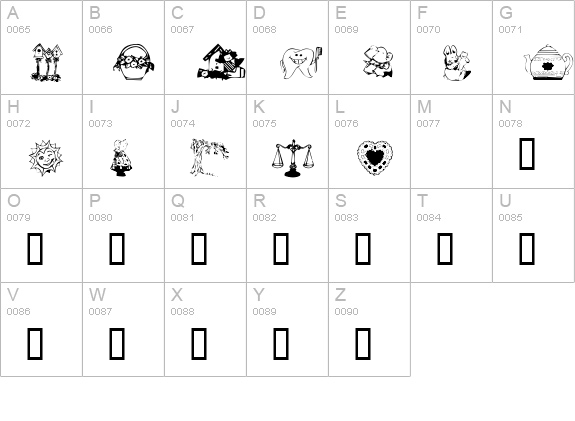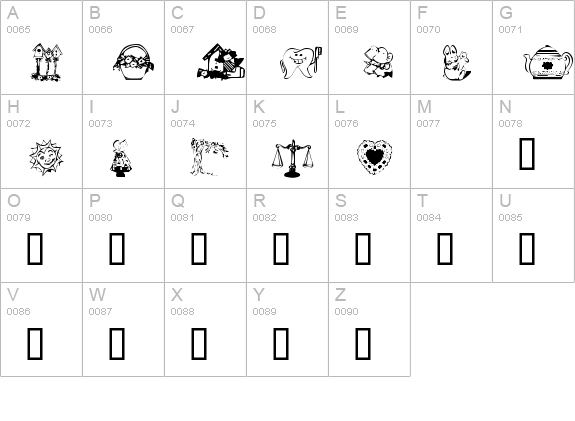
Mixed Bag 3 Font Details
Mixed Bag 3 font is a versatile and creative typeface that offers a unique blend of playful and elegant elements. This font features a mix of different styles and characters, making it perfect for a wide range of design projects. Whether you're working on a fun poster, a stylish logo, or a quirky branding project, Mixed Bag 3 font has got you covered. The best part? Mixed Bag 3 font is completely free to download at FontsMarket.com! This means you can easily access this eye-catching typeface without any cost. So go ahead and add a touch of personality and flair to your designs with Mixed Bag 3 font today.